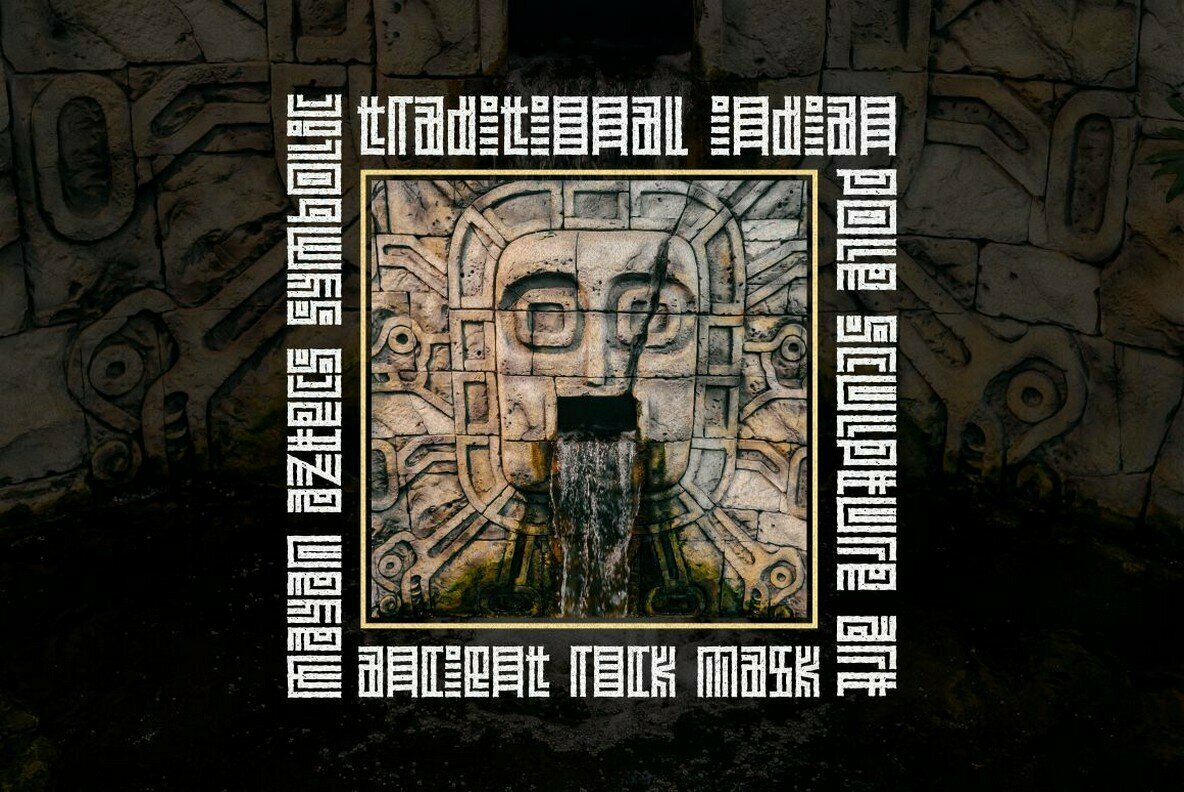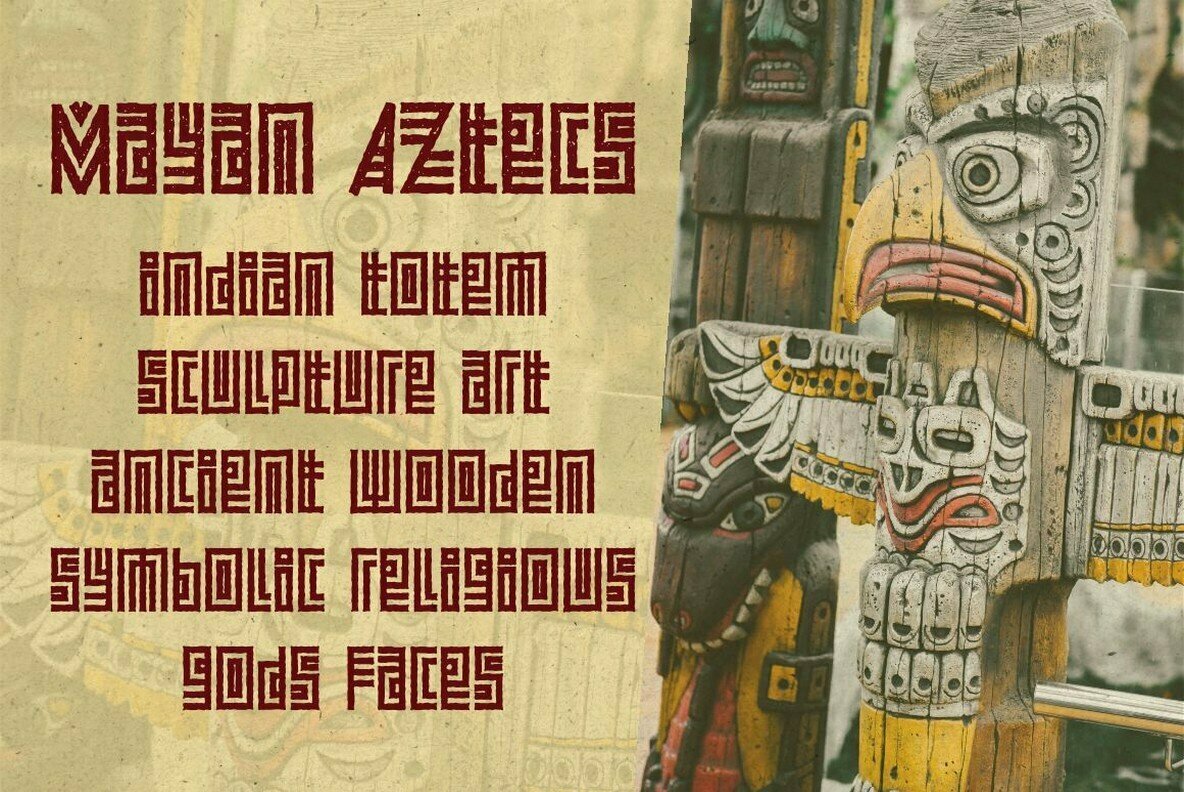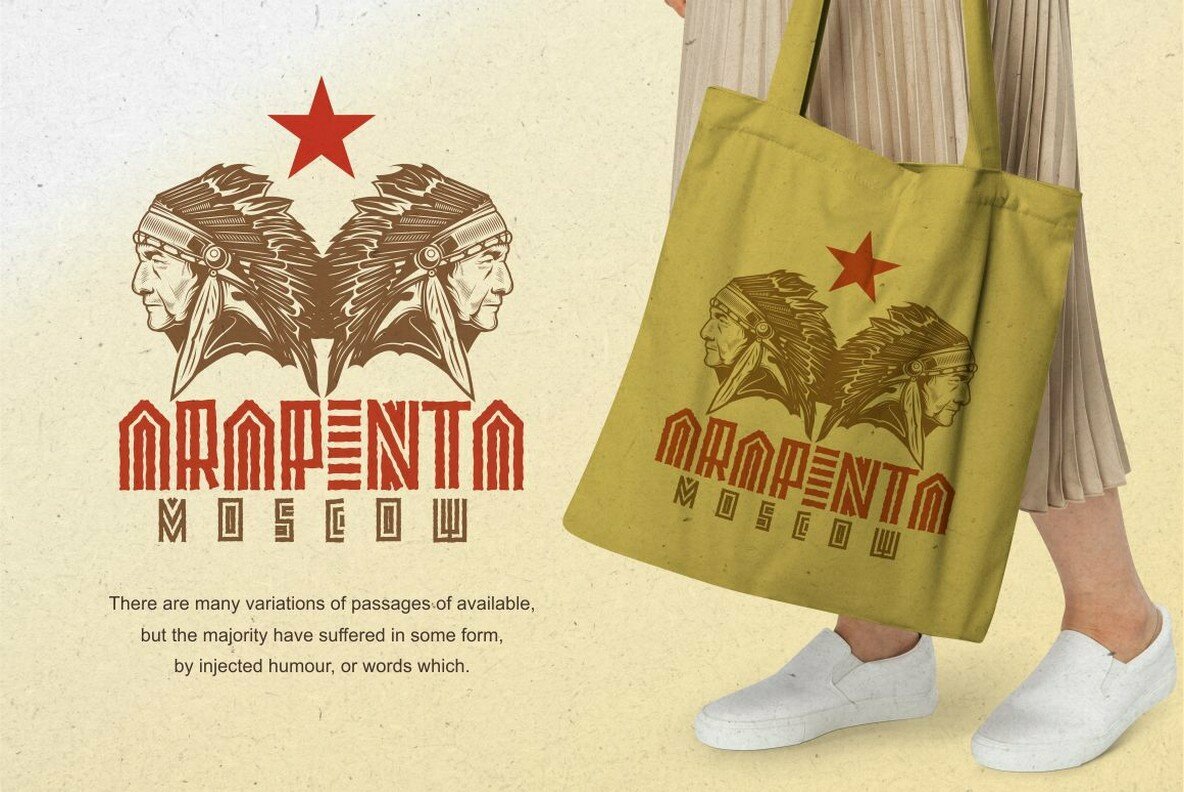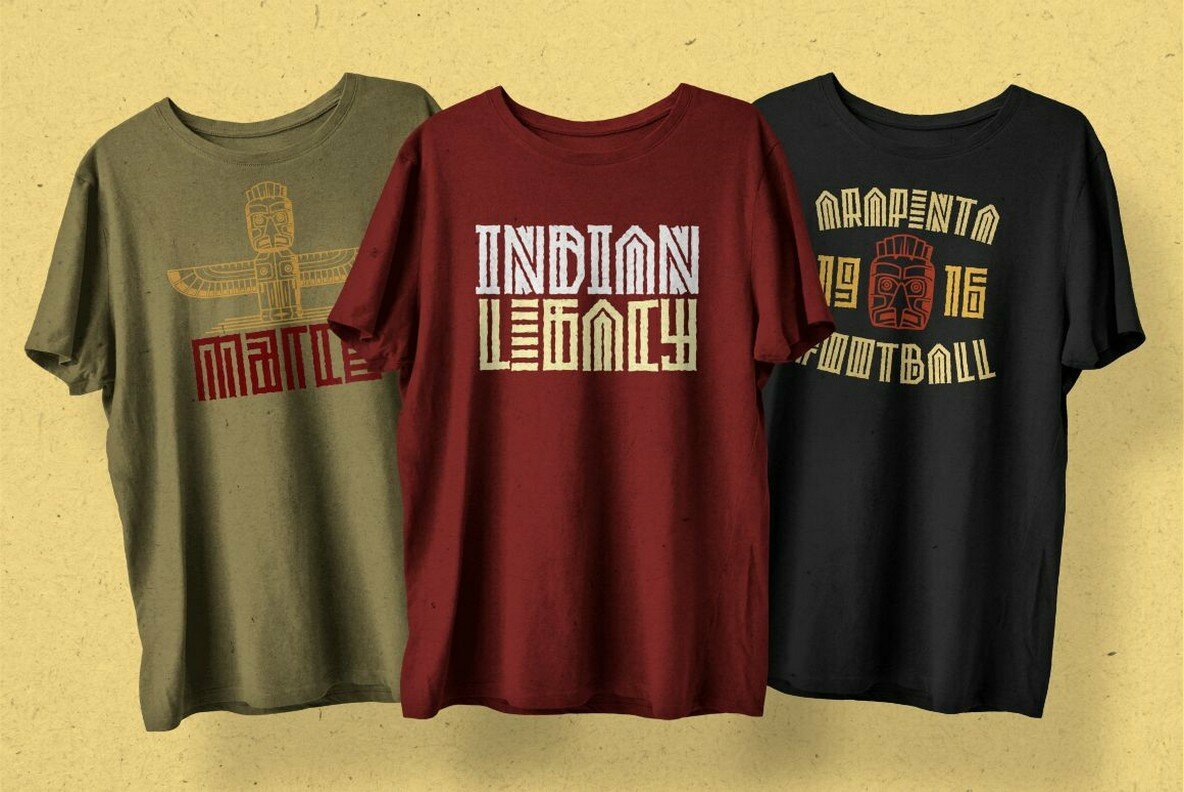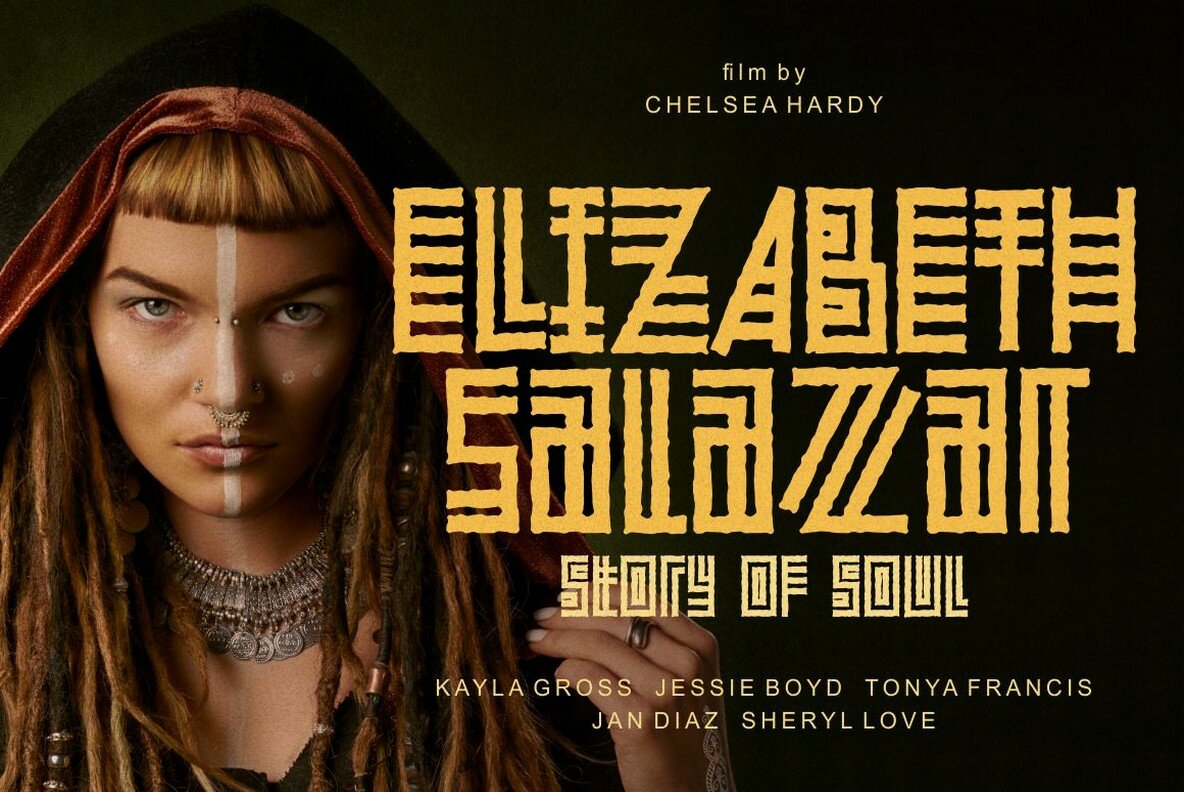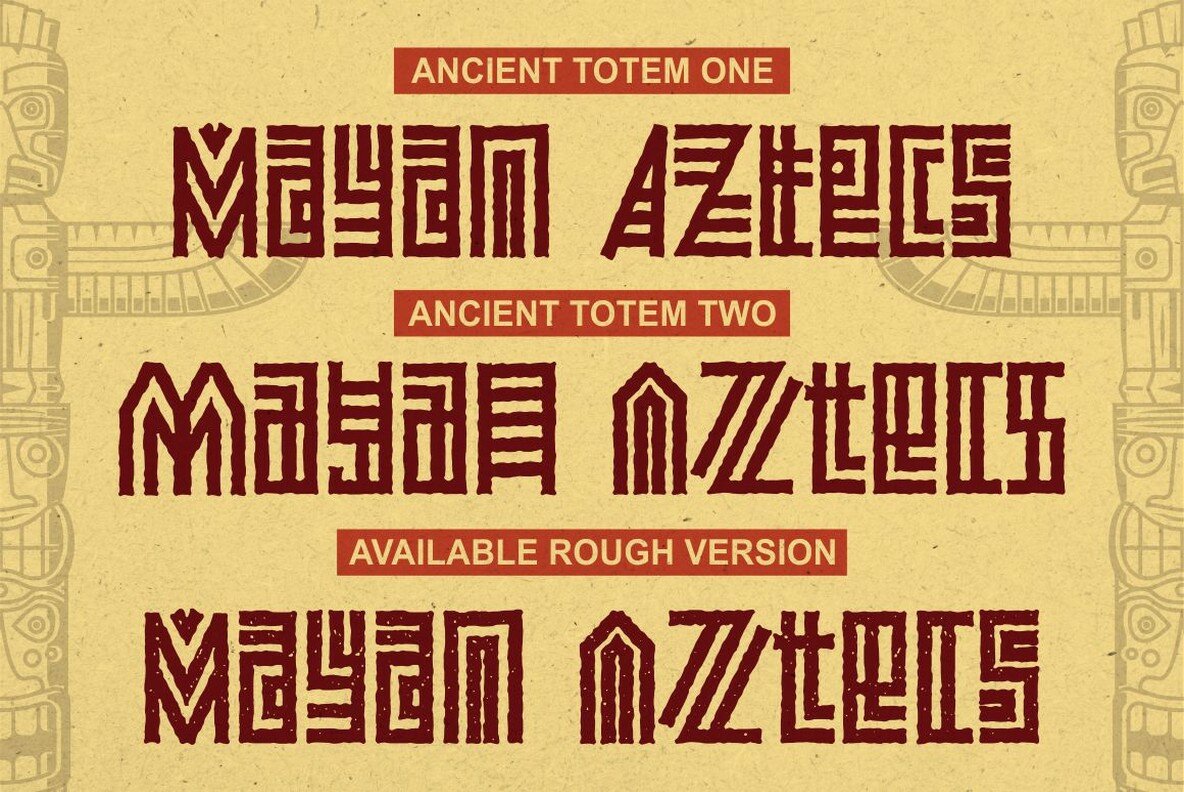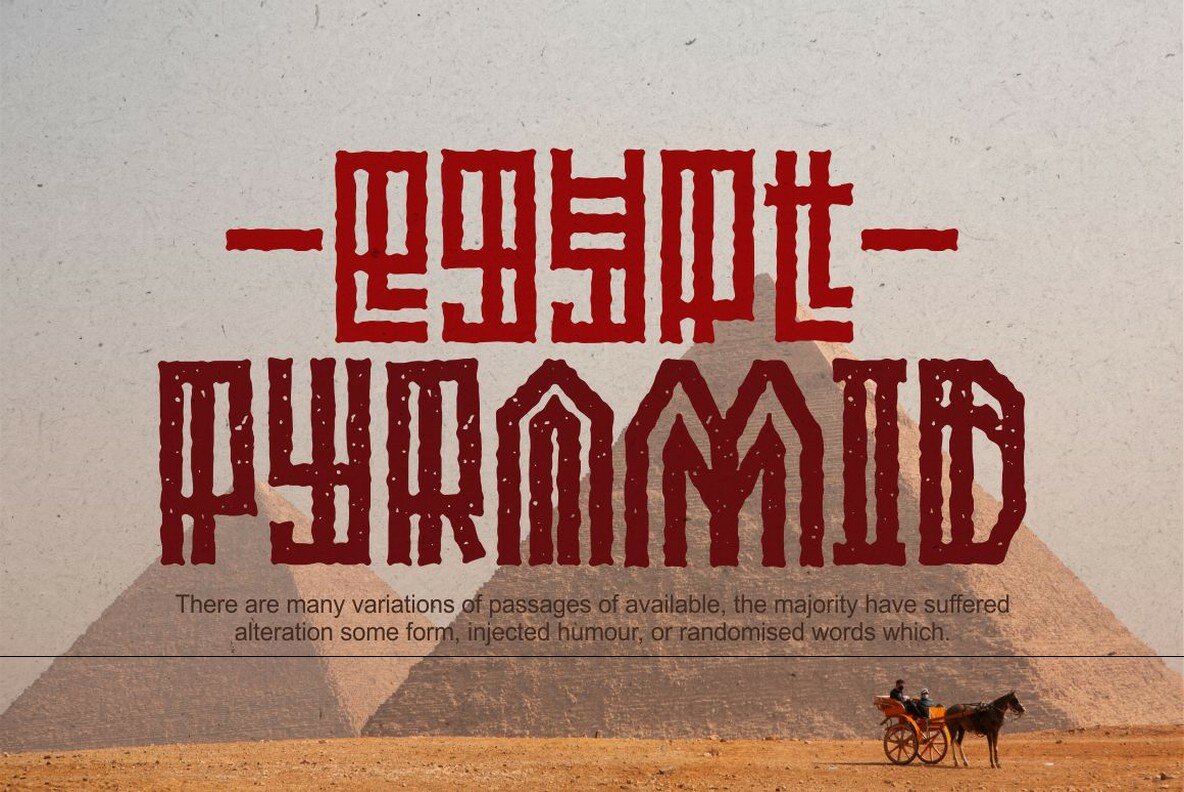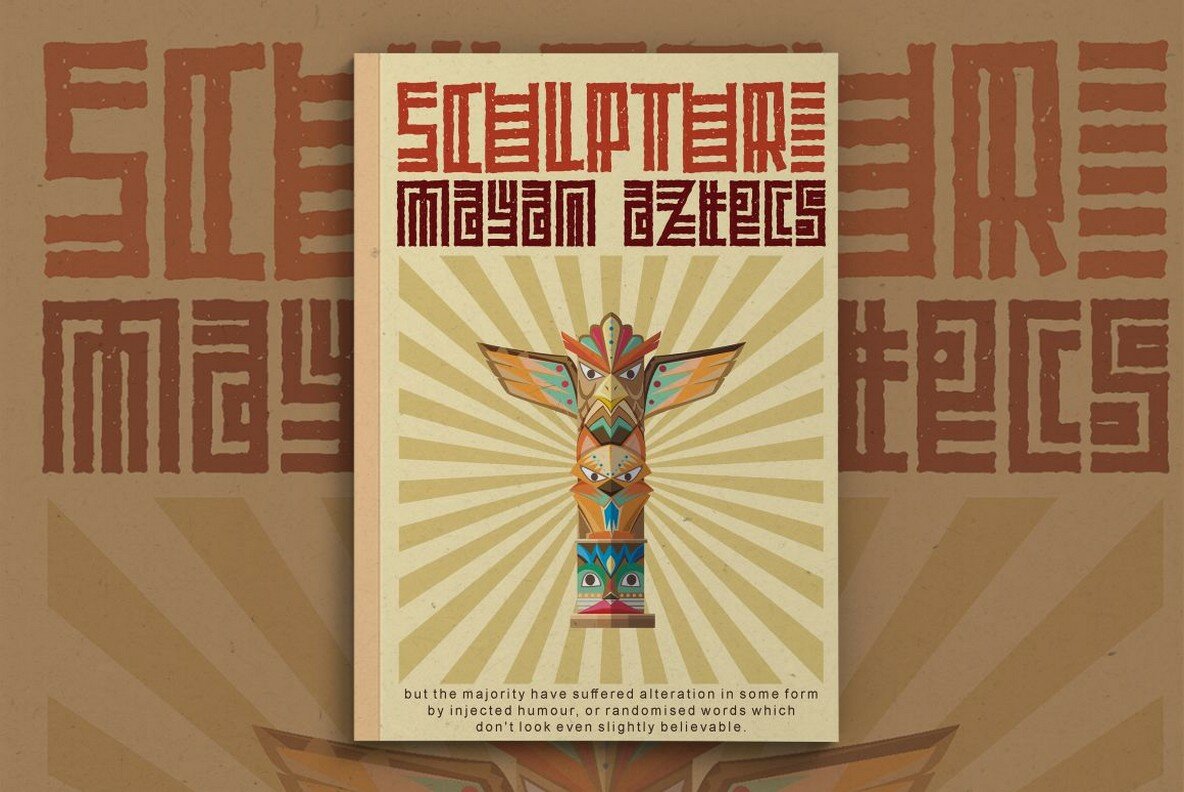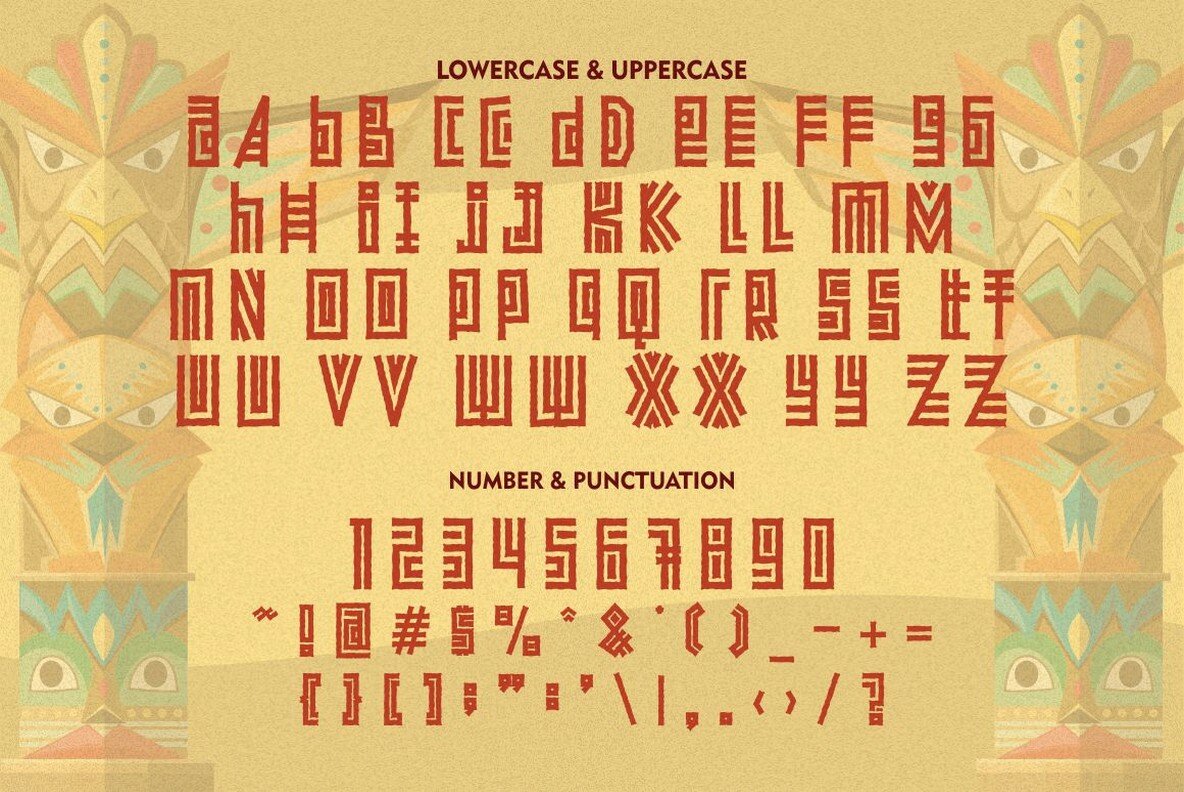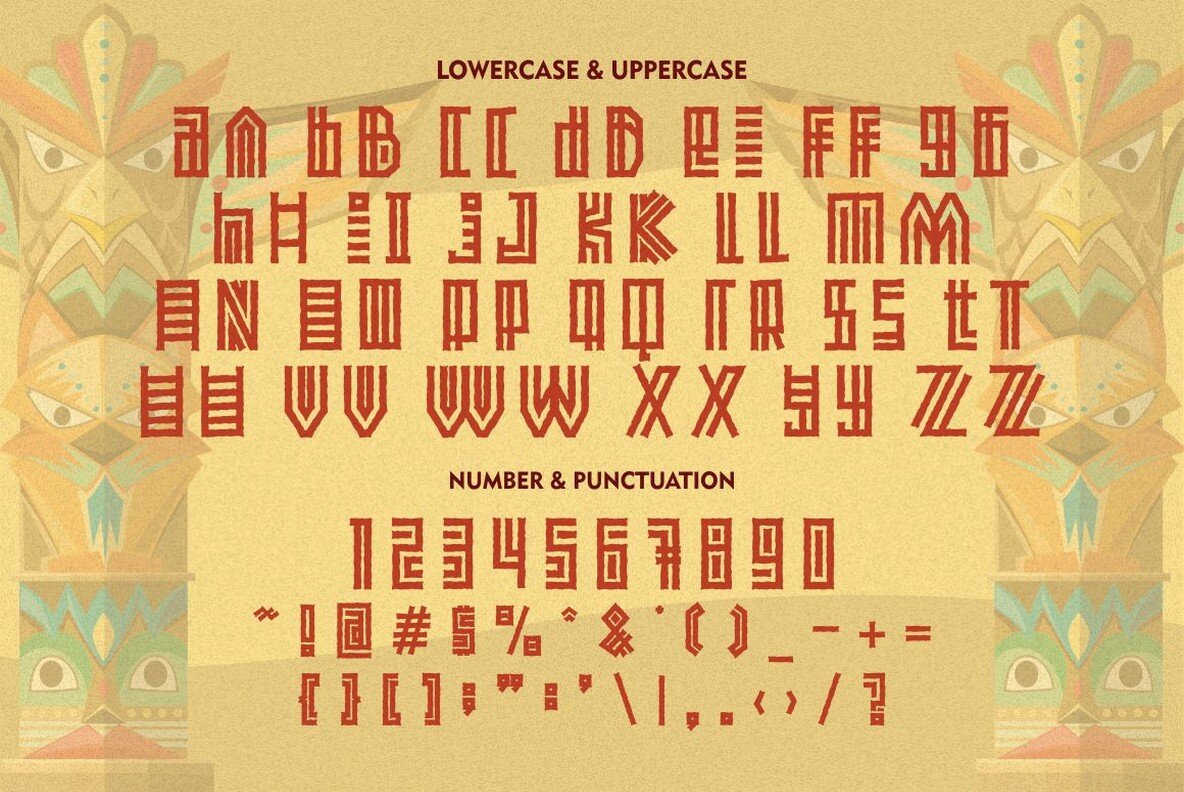
Ancient Totem Font
The font is designed to look like an ancient, totem-like symbol. It's perfect for projects with ethnic or tribal themes but can be used in other situations where you want a more creative and interesting design!